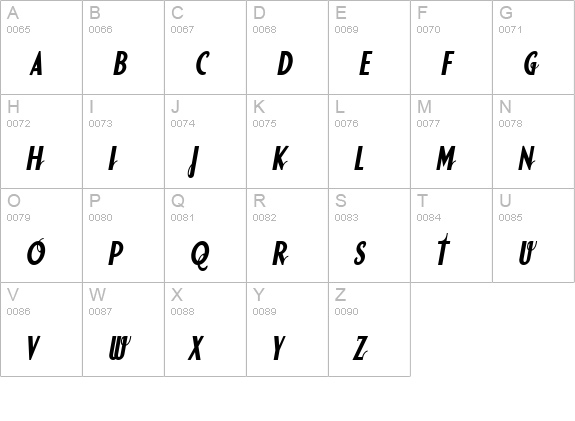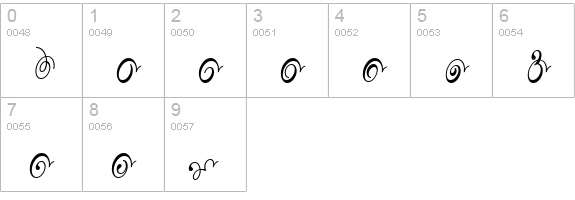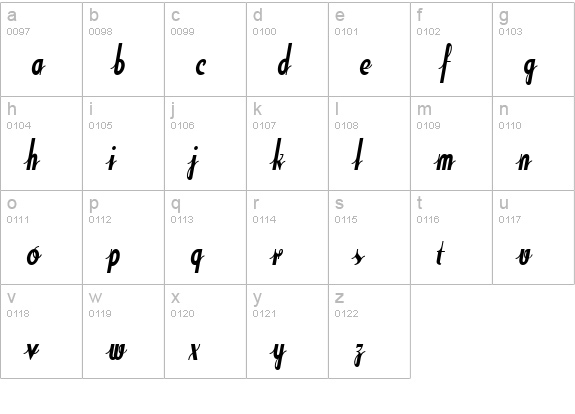
SodaScriptBoldExtras Bold Font Details
SodaScriptBoldExtras Bold is a strong, high-contrast variant in the SodaScriptBoldExtras typeface family \xE2\x80\x94 well suited to headlines, attention-grabbing titles, and strong calls-to-action.
Introducing SodaScriptBoldExtras Bold, a stunning and charismatic font that exudes confidence and creativity. This bold variant of SodaScriptExtras takes the elegance and sophistication of its original counterpart to new heights, making a bold statement with every letter. With its strong and defined strokes, SodaScriptBoldExtras Bold captures attention and commands authority. It is perfect for headlines, logos, and any design project that requires a touch of boldness and distinction. Whether you're creating a brand identity, designing packaging, or crafting invitations, this font will elevate your work to new levels of impact. SodaScriptBoldExtras Bold is not just visually striking, but also versatile. Its carefully designed characters are easily legible, ensuring that your message is clearly communicated to your audience. The font's fluid and smooth curves add a touch of elegance, making it suitable for both formal and informal projects. And the best part? SodaScriptBoldExtras Bold is available for free! You can download this remarkable font at FontsMarket.com, a trusted source for high-quality fonts. With just a few clicks, you can add this bold and captivating typeface to your design arsenal, without any cost. So why wait? Get SodaScriptBoldExtras Bold today and unleash your creativity with a font that is both powerful and free. Stand out from the crowd and make a lasting impression with this extraordinary typeface. Download it now at FontsMarket.com and let your designs speak volumes.